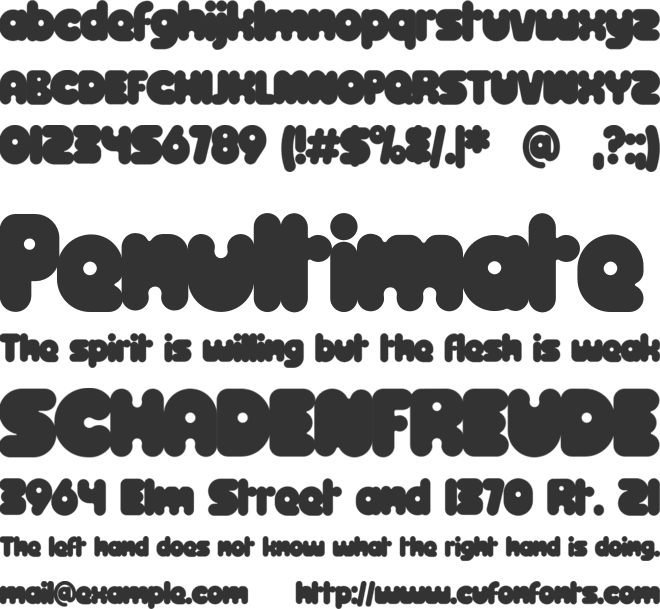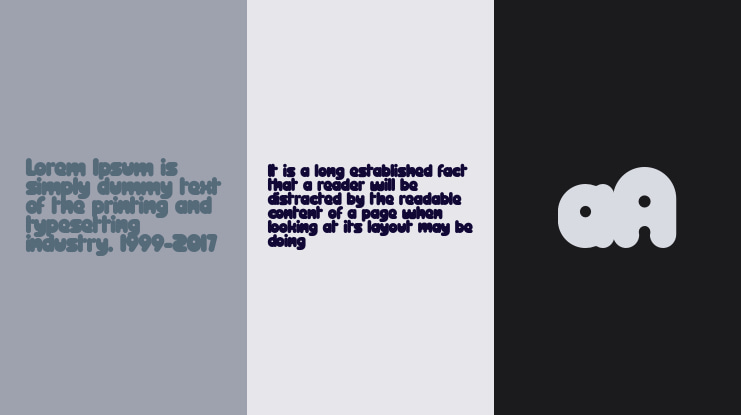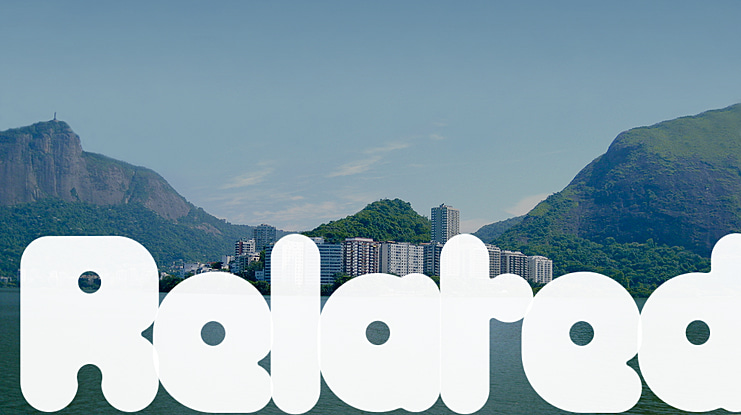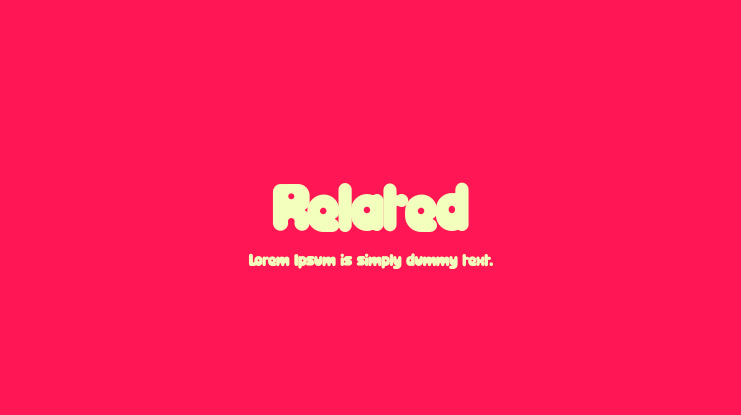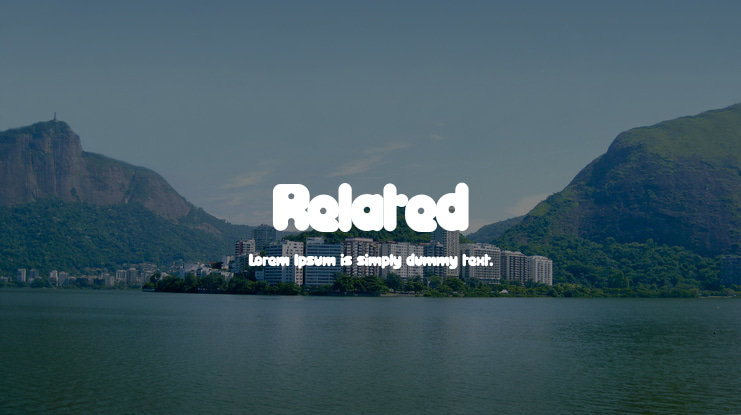
Related Font
This typeface designed by David González Molinero is a bold and bubbly retro font, designed to help you create stunning designs. It can be adapted to different aesthetics, from dark and futuristic to candy and colourful. You decide how to use it and make the most of it. It is perfect for logos, posters, advertising.